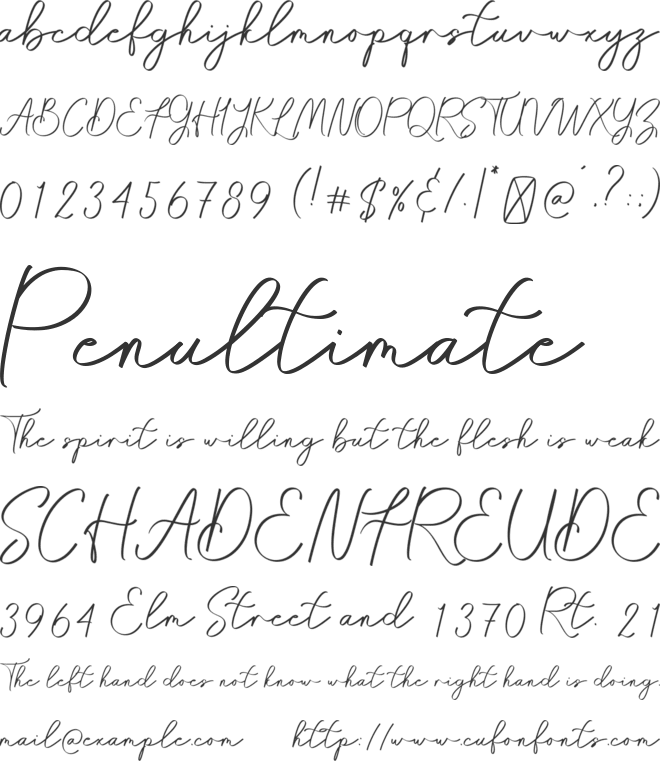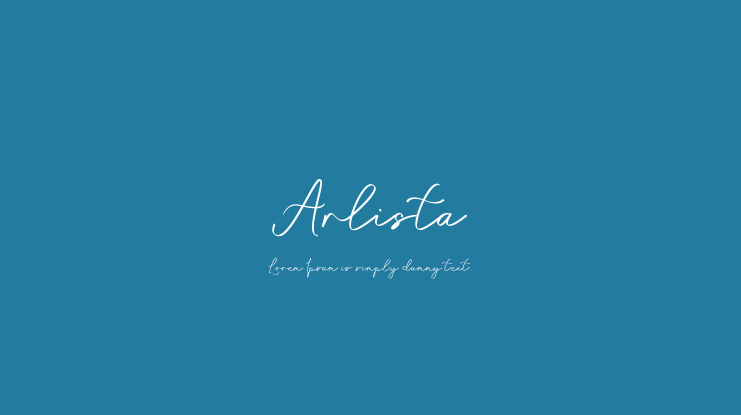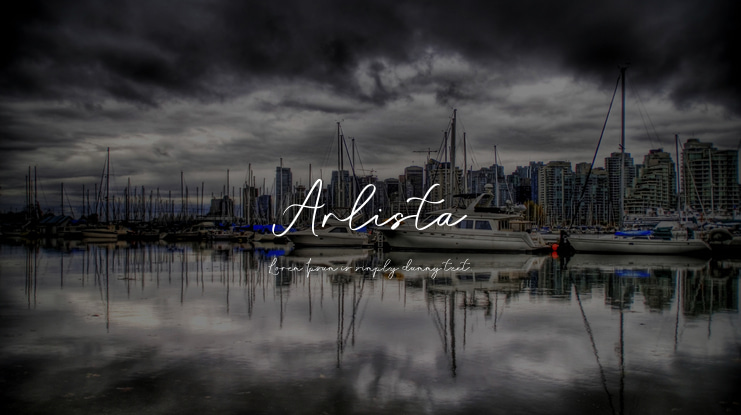
Arlista Font
Arlista is a stylish and modern handwritten font with many alternative styles for your beautiful project.
We make this font carefully so that each letter can be accessed well and classy. Alternatives to the letter a-z, the beautiful decoration, and the fastener make your project more elegant and classy. Arlista also has multilingual support and PUA encoded.
Arlista font preview